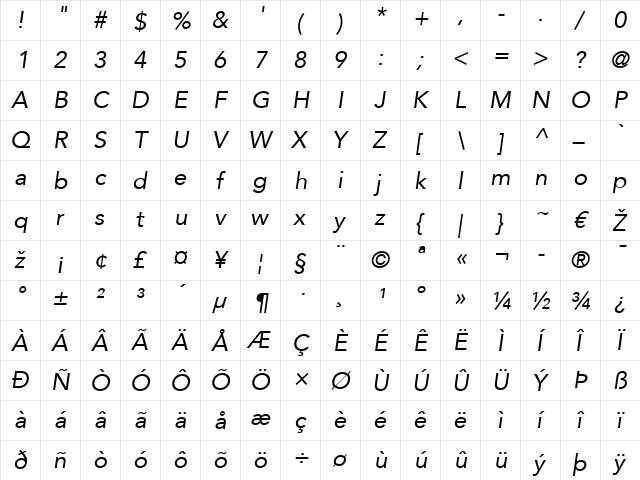
Avenir LT 55 Roman Italic Font Preview
Design Context for Avenir LT 55 Roman Typeface
Avenir LT 55 Roman is a composed and adaptable typeface that performs quietly and consistently across a wide range of design contexts. Its italic angle brings a sense of urgency and motion to the letterforms. Its slender proportions lend an understated elegance to any composition.
Pro Tip: Try Avenir LT 55 Roman for annotation and caption copy alongside an upright companion — the contrast in angle creates a dynamic but ordered typographic system.